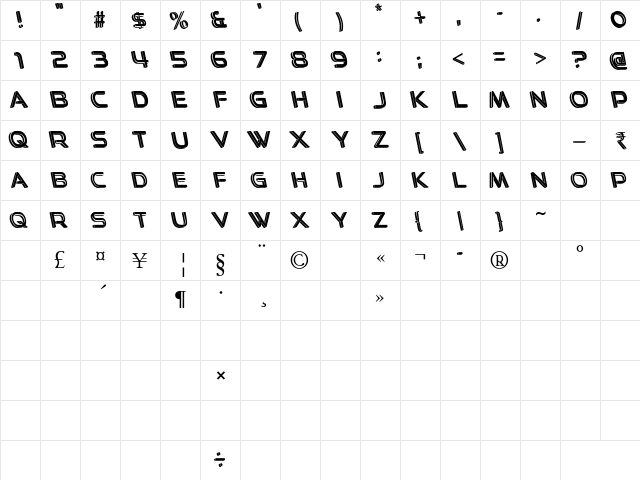
Easy 3D Regular
| Designer | Hareesh Seela |
Design Context for Easy 3D Typeface
Easy 3D is a composed and adaptable typeface that performs quietly and consistently across a wide range of design contexts.